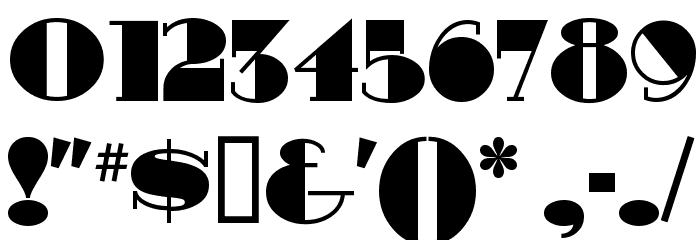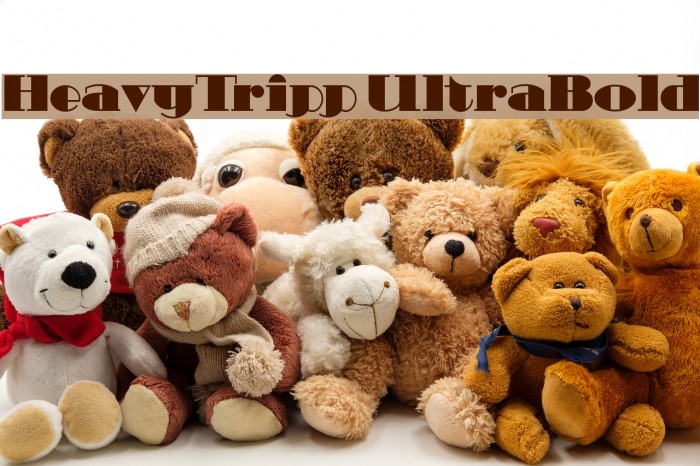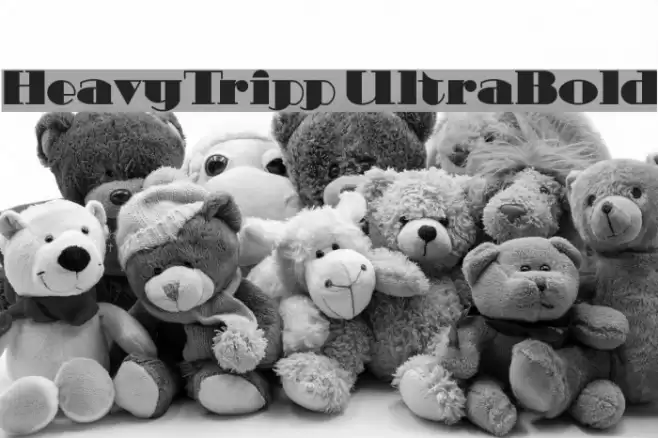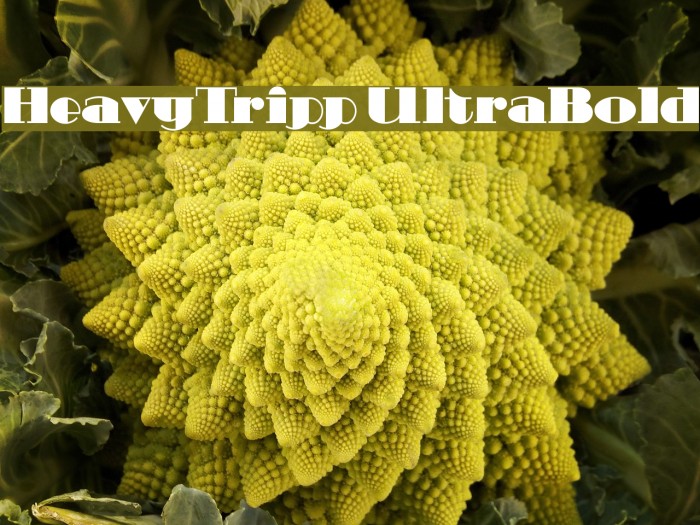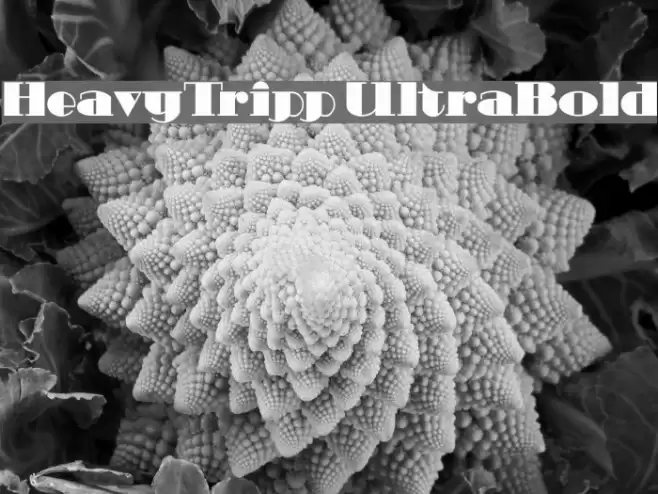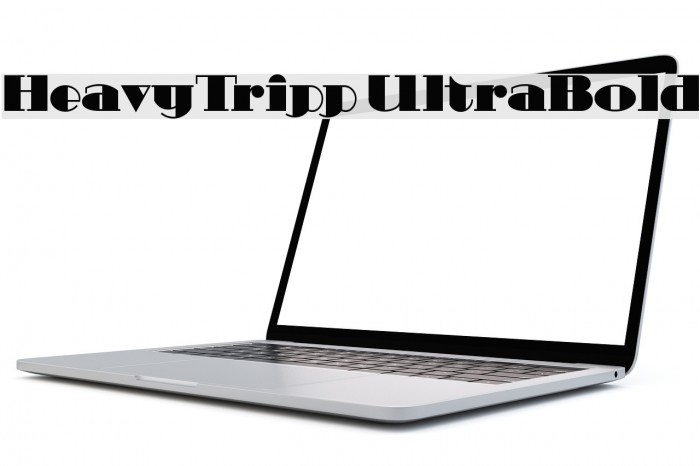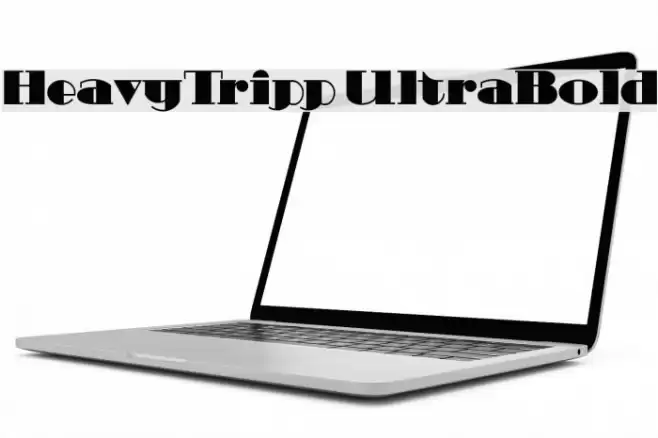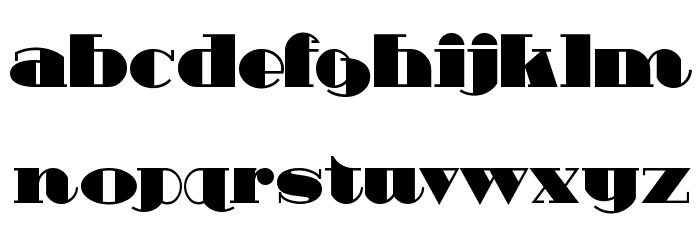
HeavyTripp UltraBold Font
HeavyTripp UltraBold Description
This font features a bold and striking design with high contrast between thick and thin strokes, giving it a dramatic and impactful appearance. The uppercase letters are particularly wide and imposing, while the lowercase letters maintain a consistent boldness that complements the overall style. The numerals are equally bold, ensuring they stand out prominently. Special characters are designed with the same boldness, adding to the cohesive look of the font. The geometric shapes and sharp angles contribute to a modern and edgy aesthetic, making it suitable for attention-grabbing designs.
| Proposed Projects | Ideal for branding, poster design, headlines, and any project requiring a strong visual impact. |